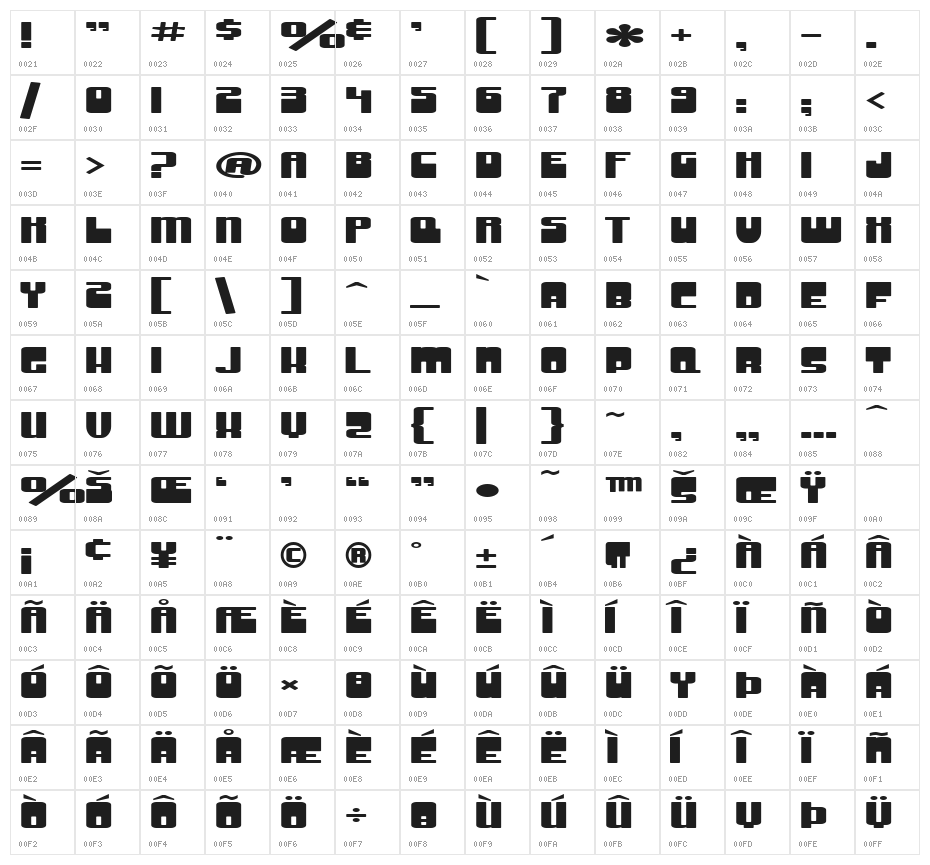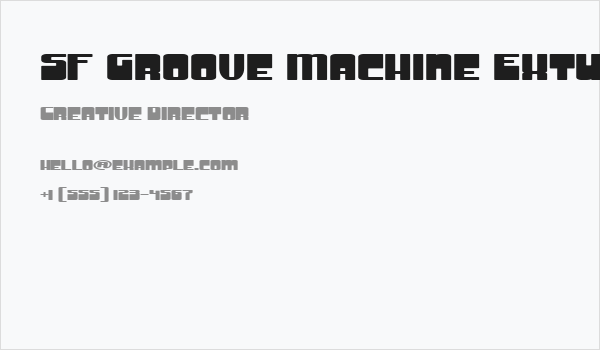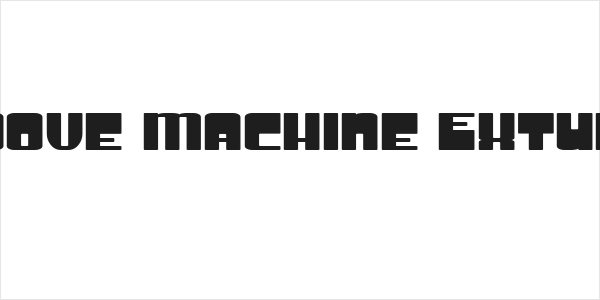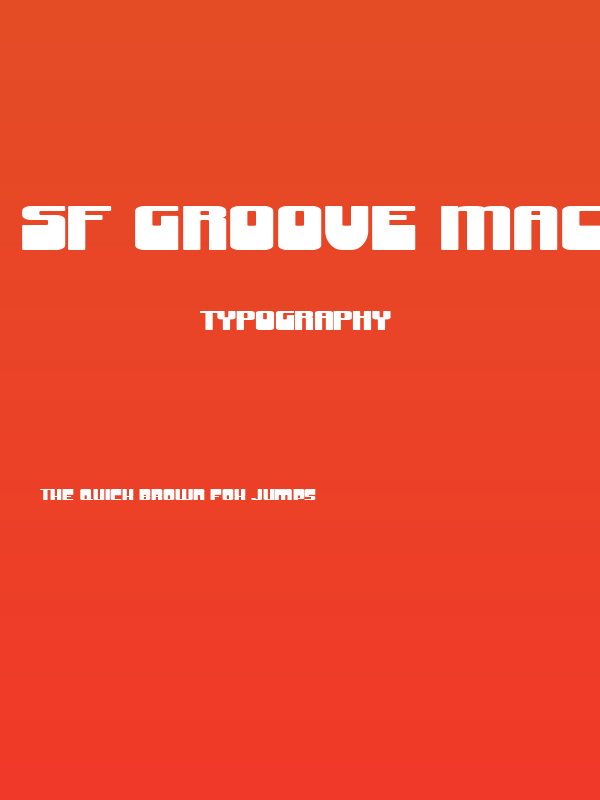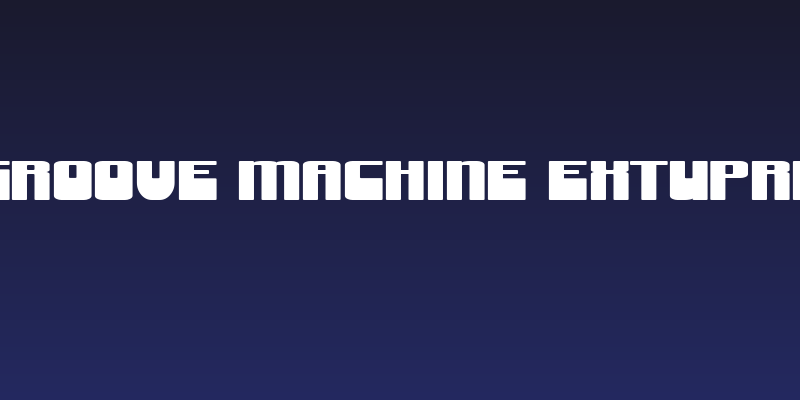
SF Groove Machine ExtUpright Font
SF Groove Machine ExtUpright Description
This font features a bold and striking design with a distinctly futuristic and geometric style. The characters are wide and blocky, with a strong presence that commands attention. The uppercase and lowercase letters maintain a consistent width, creating a uniform appearance. The numbers and special characters are designed to match the boldness of the alphabet, ensuring a cohesive look across all text. The font's unique style makes it ideal for projects that require a modern and impactful aesthetic.
| Proposed Projects | Ideal for branding, posters, headlines, and any design requiring a modern and bold statement. |